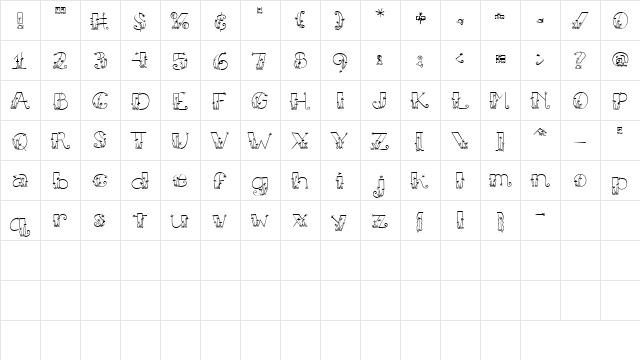
CK Flower Garden Regular
CK Flower Garden is a composed and adaptable typeface that performs quietly and consistently across a wide range of design contexts.